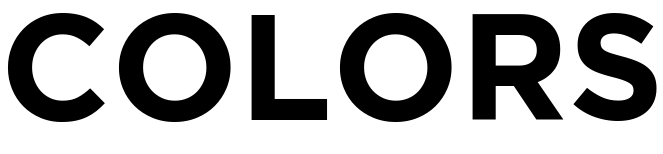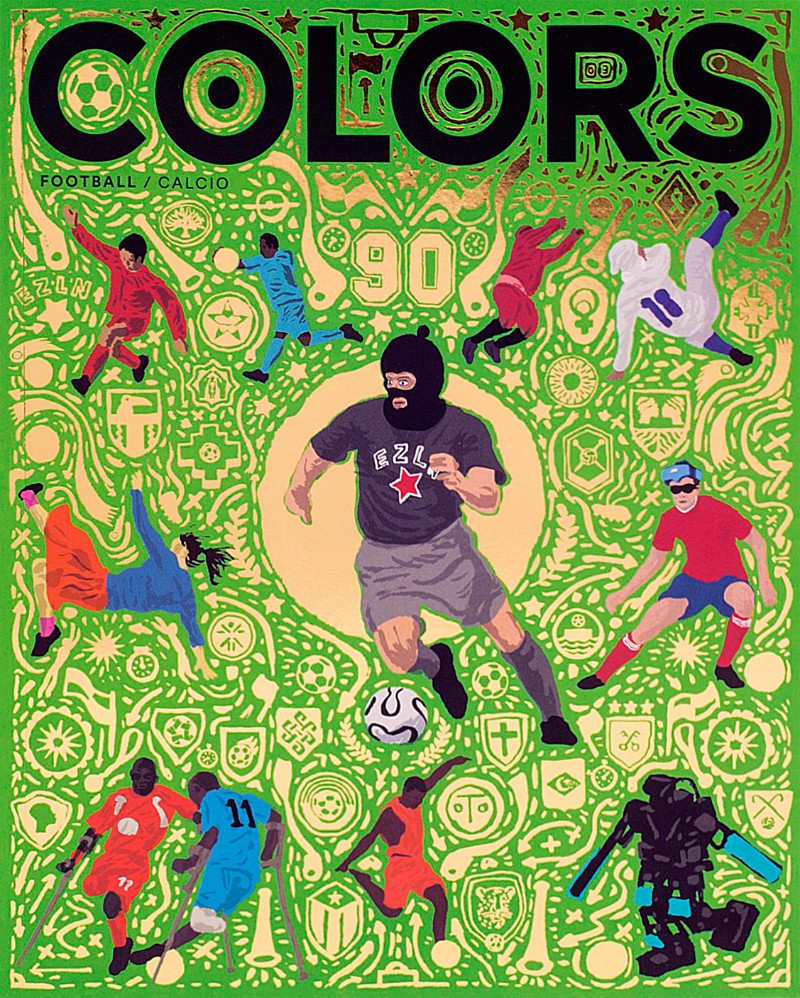
Colors (magazine) Font
BookColors is a publication founded in 1991 by the Fabrica research center in Italy and is now published in over 30 languages. The magazine explores topics such as race, identity, culture, and social justice through articles, photography, video, and other forms of media.
Since the magazine's launch, it has used three different typefaces for its logo. Geometric 415 by William Addison was most probably used for the logos from the first five issues. Then, they used Nobel Bold by Font Bureau with issue #6 and continued until issue #60. They continued to use the Gotham Bold after that, as seen by the most recent issue.